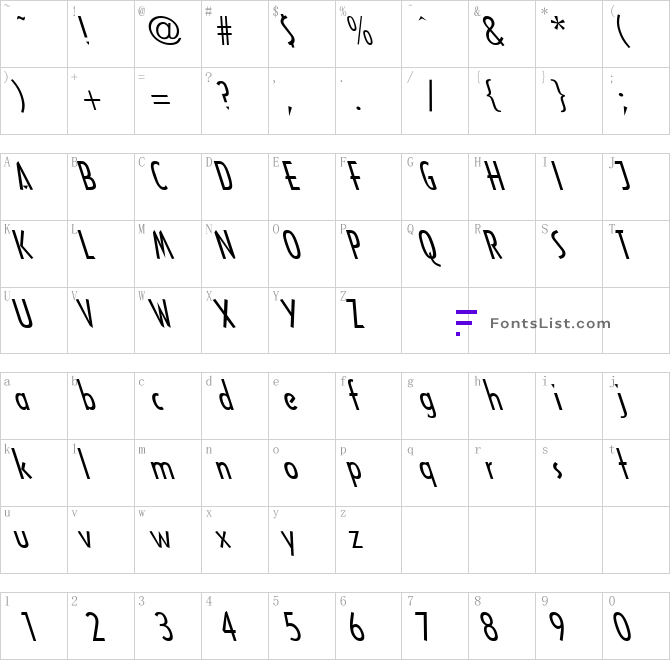
- Font Name:Arcitectura Lefty
Arcitectura-Lefty.ttf is a very beautiful artistic font, Arcitectura-Lefty.ttf is widely used in the design and printing of various books and pictures,Arcitectura-Lefty.ttf has a strong visual impact,Arcitectura-Lefty.ttf is a commonly used font in newspapers, magazines and books, and is used in posters, e-commerce Poster design, store design, logo design, font design and other fields.Arcitectura-Lefty.